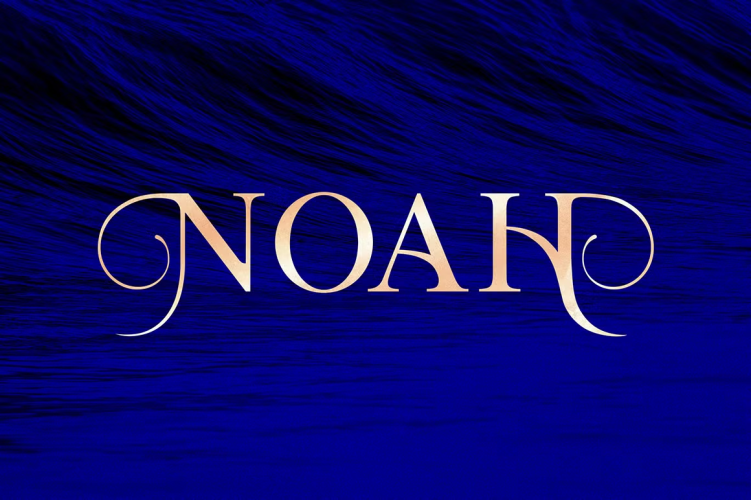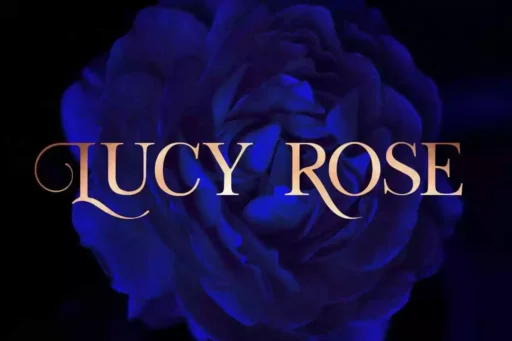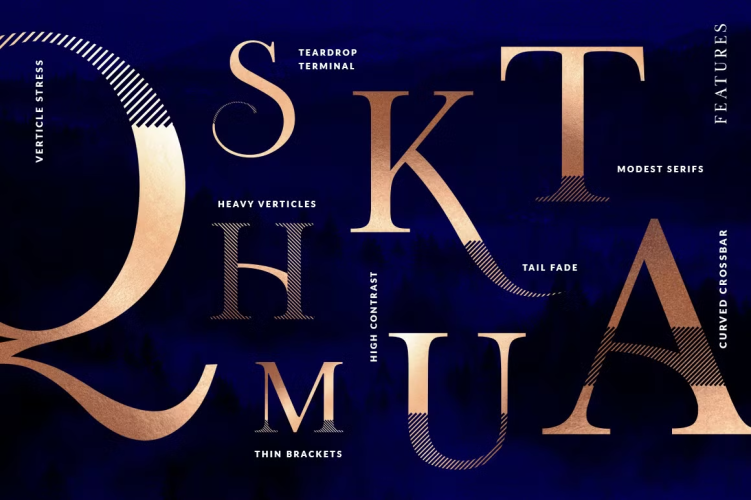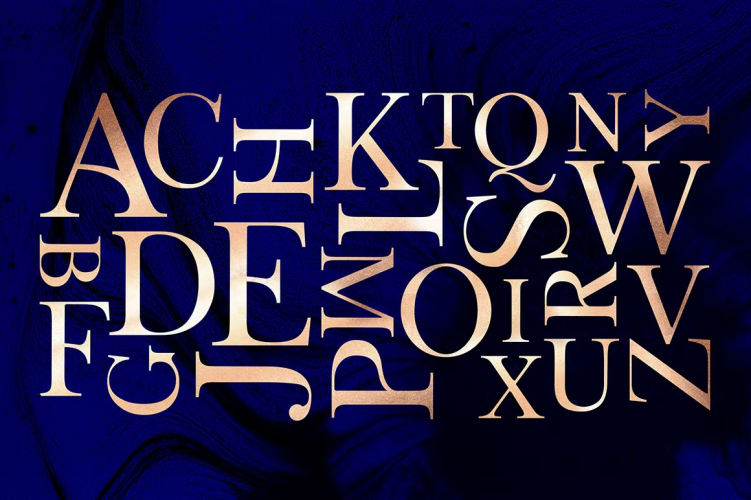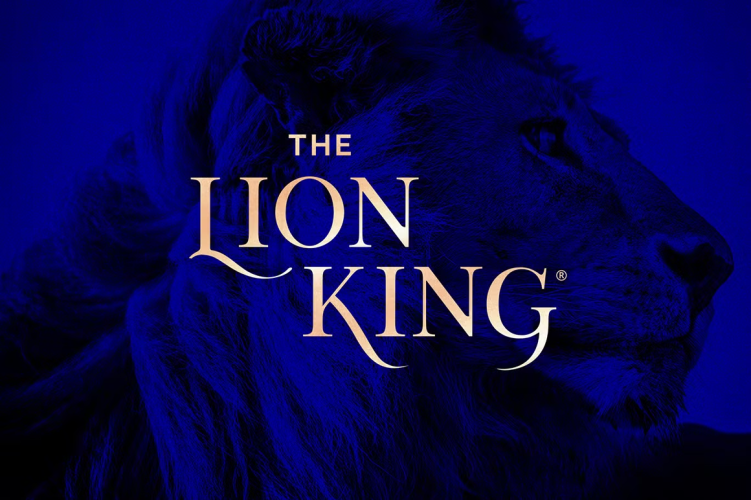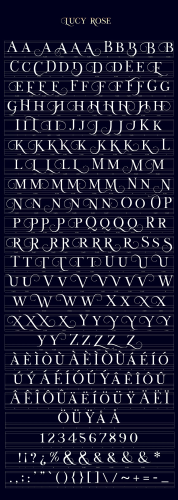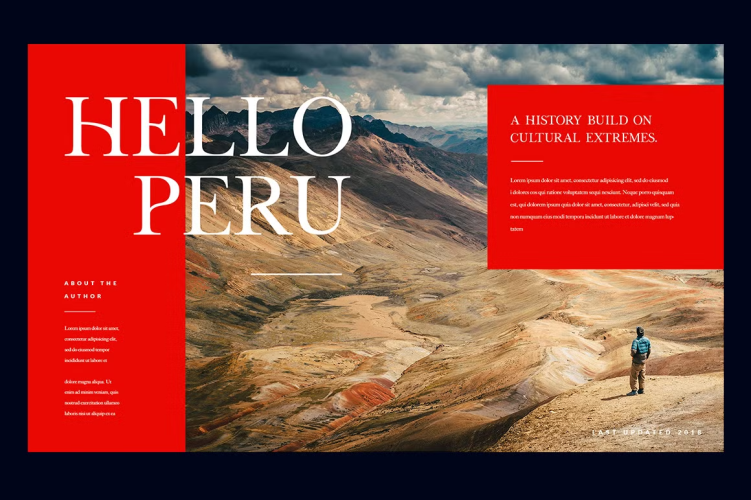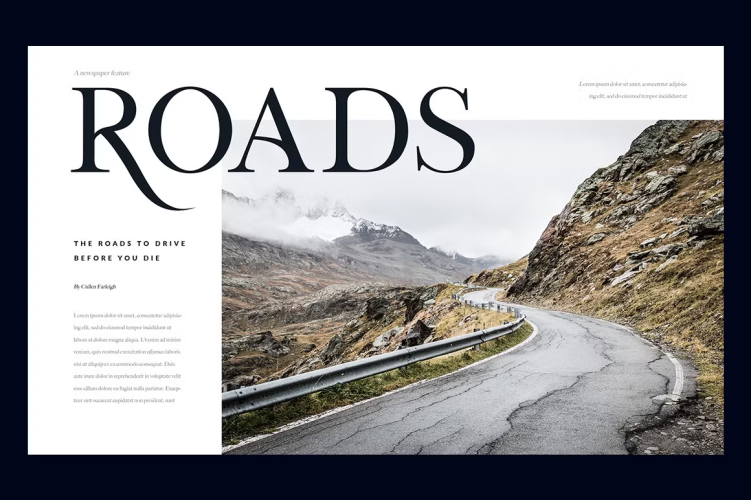
Lucy Rose Font
Introducing Lucy Rose, a charming serif font that is ready to take action and offers unlimited options for imagination and adventure.
As a capitalized font type, Lucy Rose establishes itself by its upright and straight lines giving the chance for the extensions to stand out.The result? Beautiful, eye-catching and completely different designs that makes your collections stand out and pique curiosity.
Lucy Rose stands out because of its whopping range of over 100 funky alternatives covering all the shades of the rainbow to guarantee limitless customization capabilities. Whether you are designing the logo, the headlines, or the titles, Lucy Rose empowers you to design them to be memorable and exclusive. Its original form offers a blend of elegance and nobleness and is perfect for different applications such as editorial, books, advertising, branding, and packaging.
Lucy Rose is the best choice for apparel for designers looking for the correct set of tools to bring their vision to the shopper’s attention in a beautiful way. The versatility and alluring nature of this color adds to the designer’s ability to make his/her statement and impress onlookers for a long time.
Lucy Rose looks centre stage as the screen’s complimentary partner for fonts like Seravek and Oswald, forming well-balanced designs perfect for elegant hits.
In summary, the Lucy Rose is not a typeface that is only acting superficially, it’s a creative companion that thrives on exploration, novelty, and infinite discoveries. Providing unparalleled opportunity and irresistible allure, Lucy Rose will become an inevitable indispensable tool in the repository of every designer.
Where Lucy Rose Font works best
Lucy Rose Font gives long-form text a classic, trustworthy rhythm — ideal for magazine spreads, annual reports and book interiors.
Pair Lucy Rose Font with generous letter-spacing for wordmarks in fashion, hospitality, wine and jewellery branding.
Use Lucy Rose Font for slide titles in Keynote, PowerPoint or Google Slides to add authority without looking dated.